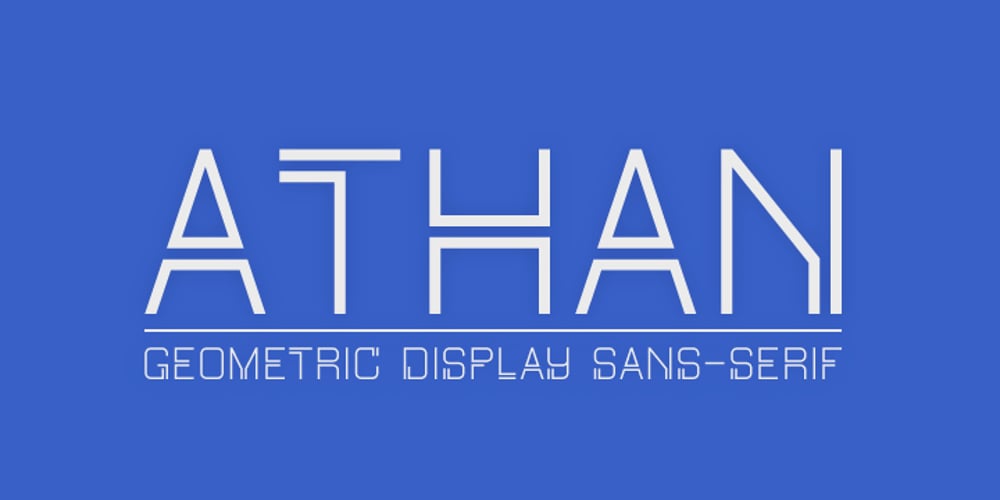
Athan Font Family was designed by Dani Montesinos and published by HyperFluro. Athan contains 2 styles and family package options. Athan is an uppercase geometric sans-serif typeface designed by Dani Montesinos in 2009. Inspired by one piece of lettering from the 1970s, Athan offers something a little different in terms of typography. With strong geometric forms, and highly distinctive characters, it’s sure to catch your eye.